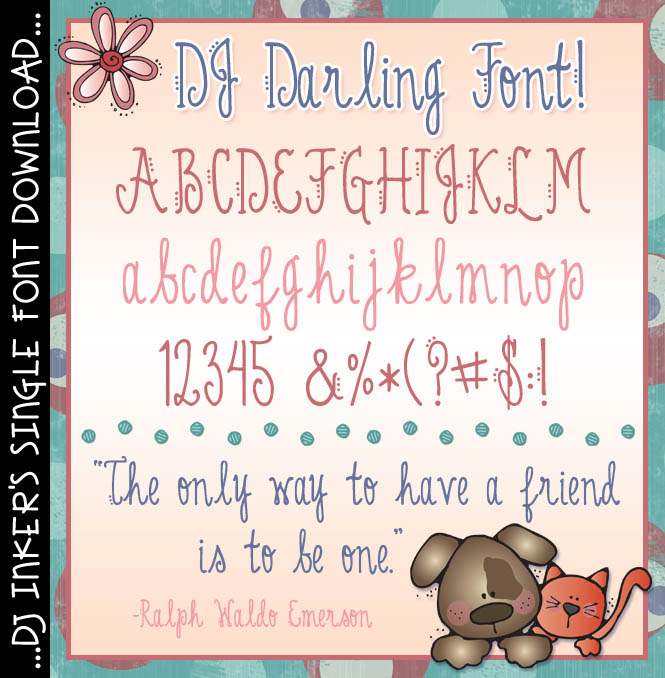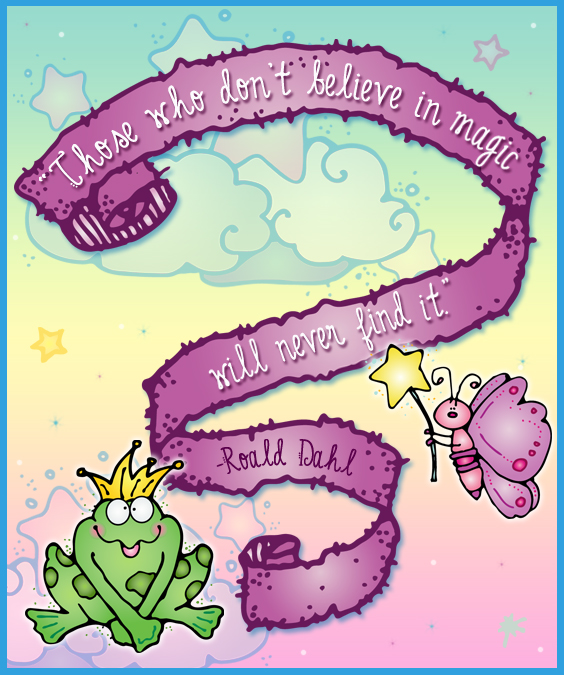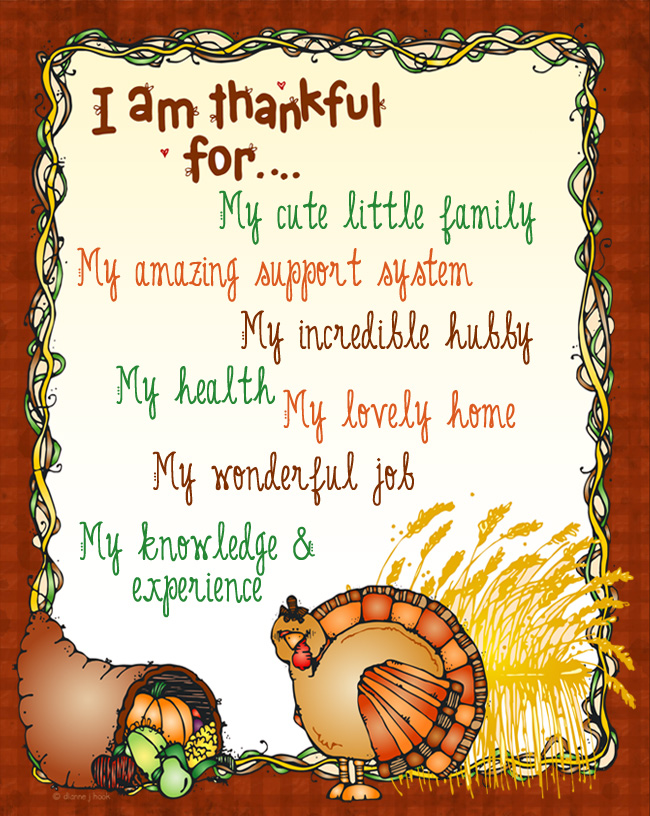
DJ Darling Font Download
Your words will look oh-so-sweet typed in this DJ Darling font! This
soft, cursive lettering will be wonderful for letter writing, journaling,
sweetheart scrapbooks, thank you notes and more.